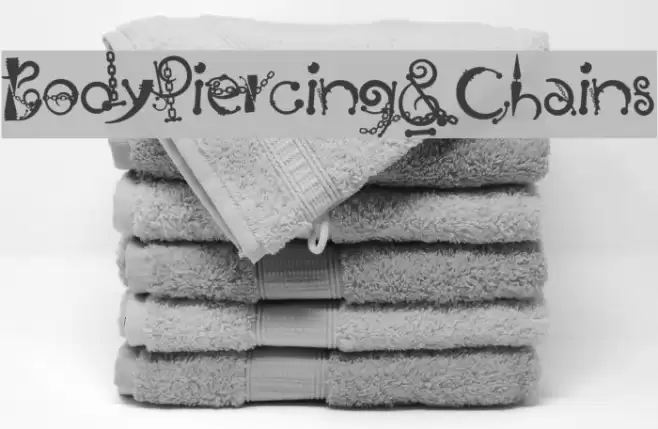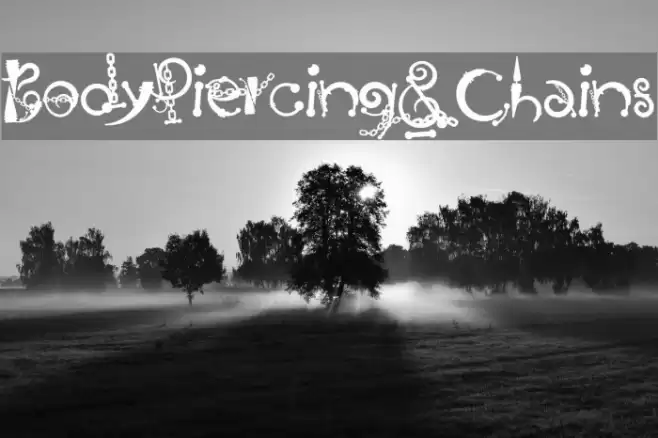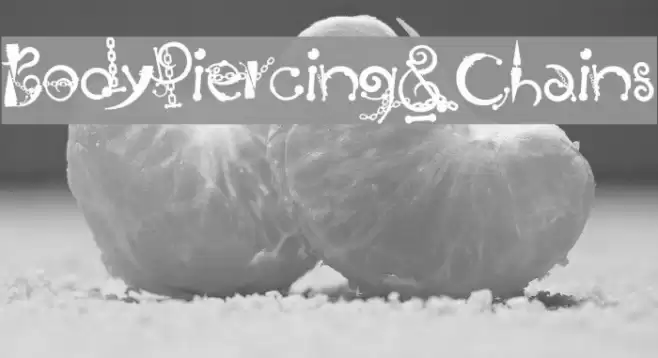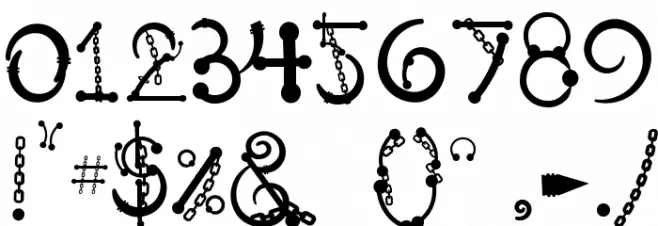
BodyPiercing&Chains Font
BodyPiercing&Chains Description
This font features a unique and edgy design, incorporating elements reminiscent of body piercings and chains. Each character is adorned with intricate details that mimic the appearance of metal links and studs, creating a bold and rebellious aesthetic. The uppercase and lowercase letters maintain a consistent theme, with sharp edges and decorative embellishments that add to the overall punk-inspired style. Numbers and special characters are equally detailed, ensuring a cohesive look across all text. This font is perfect for projects that aim to convey a sense of individuality and nonconformity.
An edgy, punk-inspired font with chain and piercing motifs from Decorative fonts.
- Proposed Projects: Ideal for music album covers, tattoo parlors, alternative fashion branding, and event posters.
- Overall Style: Modern, Punk